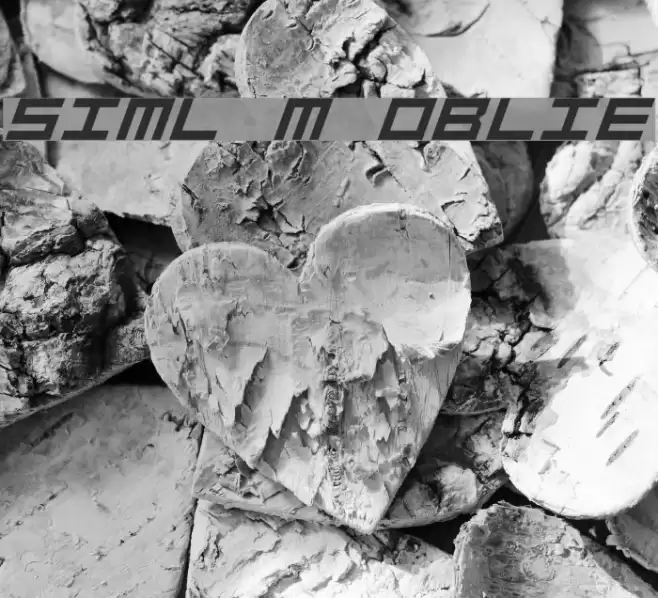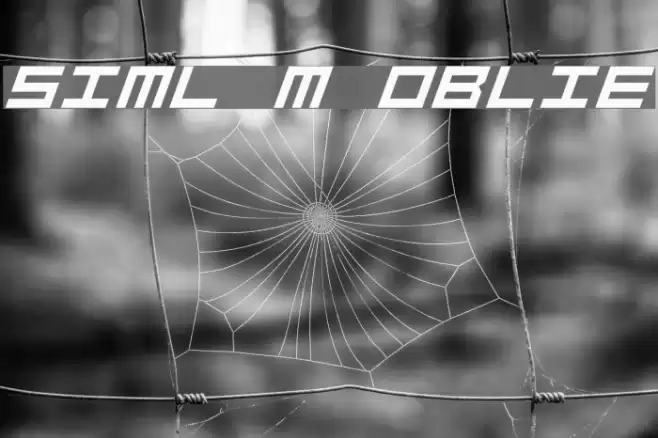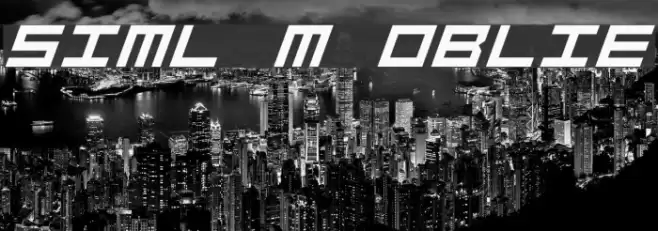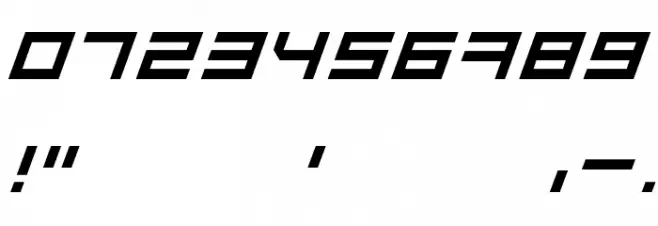
Simply Mono Oblique Font
Simply Mono Oblique Description
This font features a sleek, monospaced design with an oblique slant, giving it a dynamic and modern appearance. Each character is uniformly spaced, maintaining a consistent width that enhances readability and structure. The angular, geometric forms of the letters contribute to a futuristic aesthetic, making it ideal for tech-oriented projects. The uppercase letters are bold and commanding, while the numerals are clear and distinct, ensuring they stand out in any context. The special characters are designed with the same attention to detail, providing a cohesive look across all glyphs.
A modern, oblique monospaced font with a futuristic and geometric style from Uncategorized fonts.
- Proposed Projects: Ideal for coding environments, tech branding, digital interfaces, and futuristic design projects.
- Use Case: Logos, Digital interfaces, Coding environments